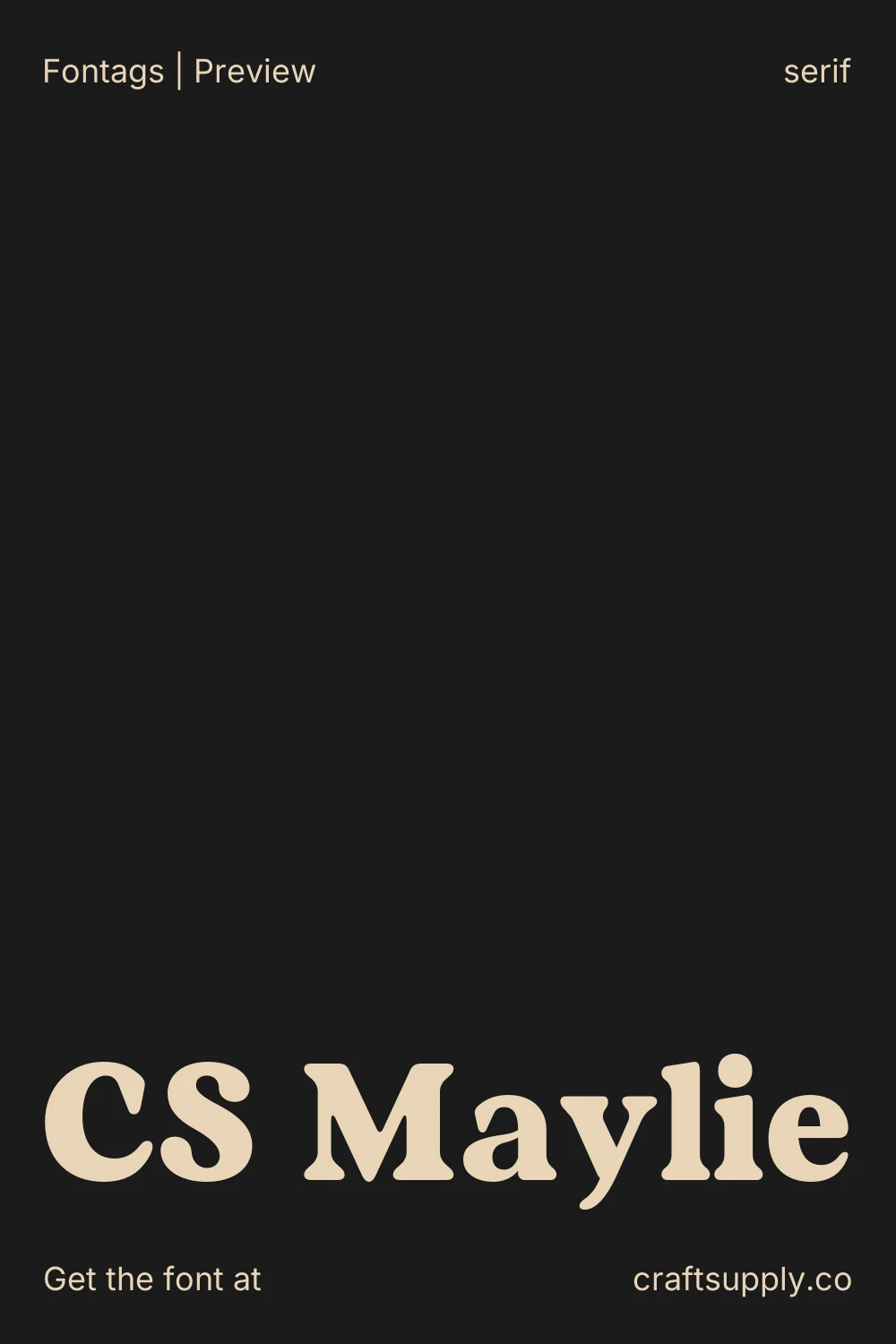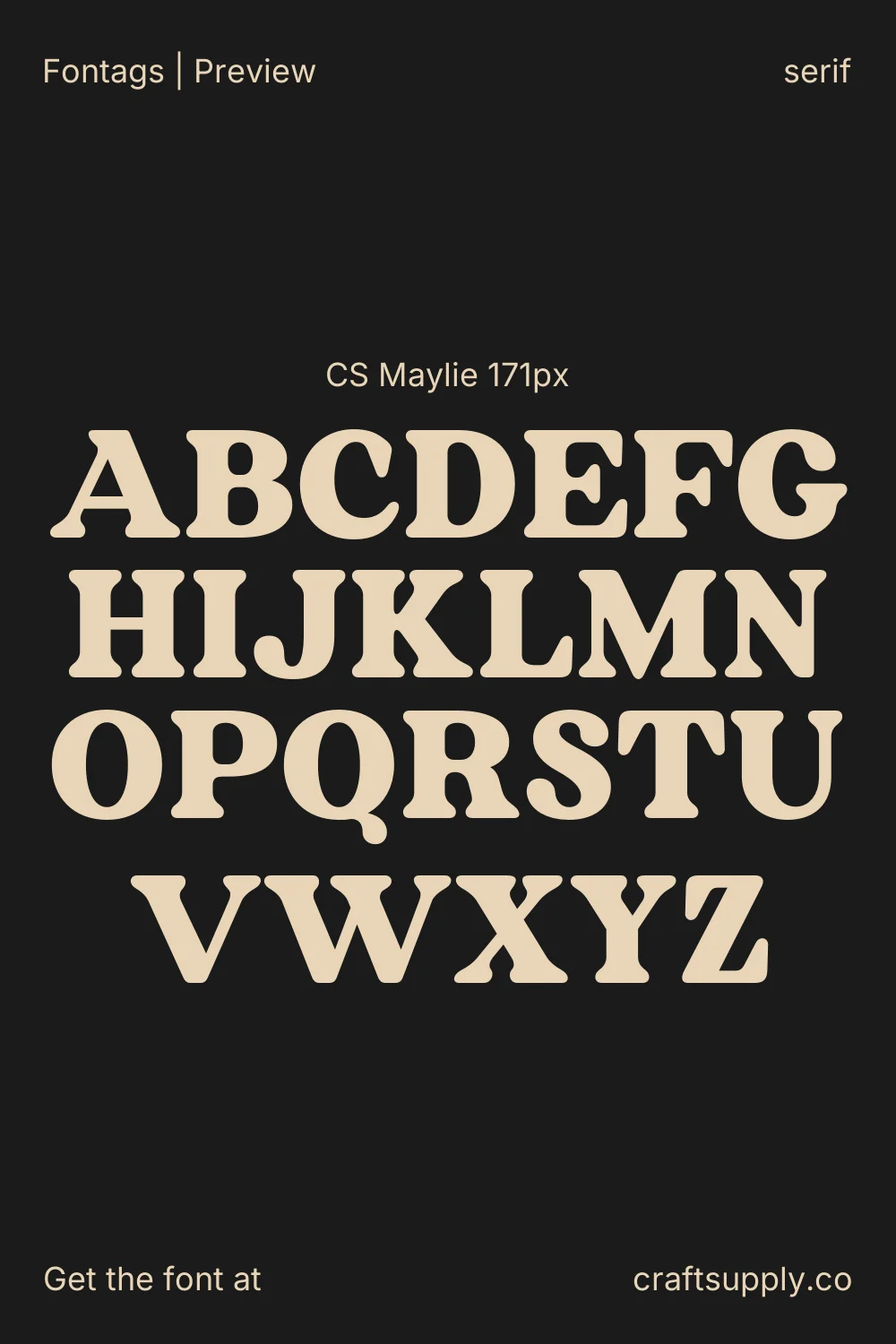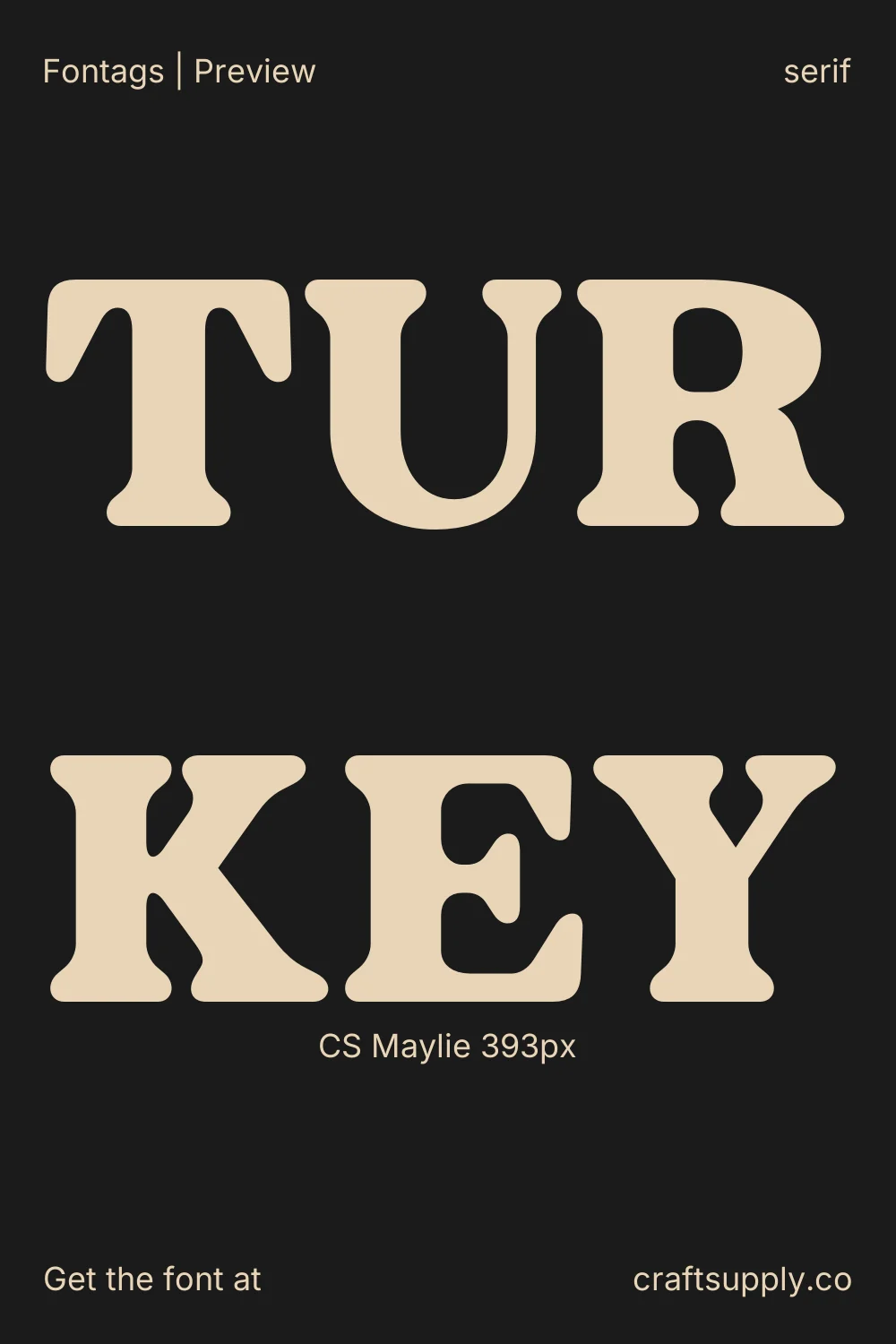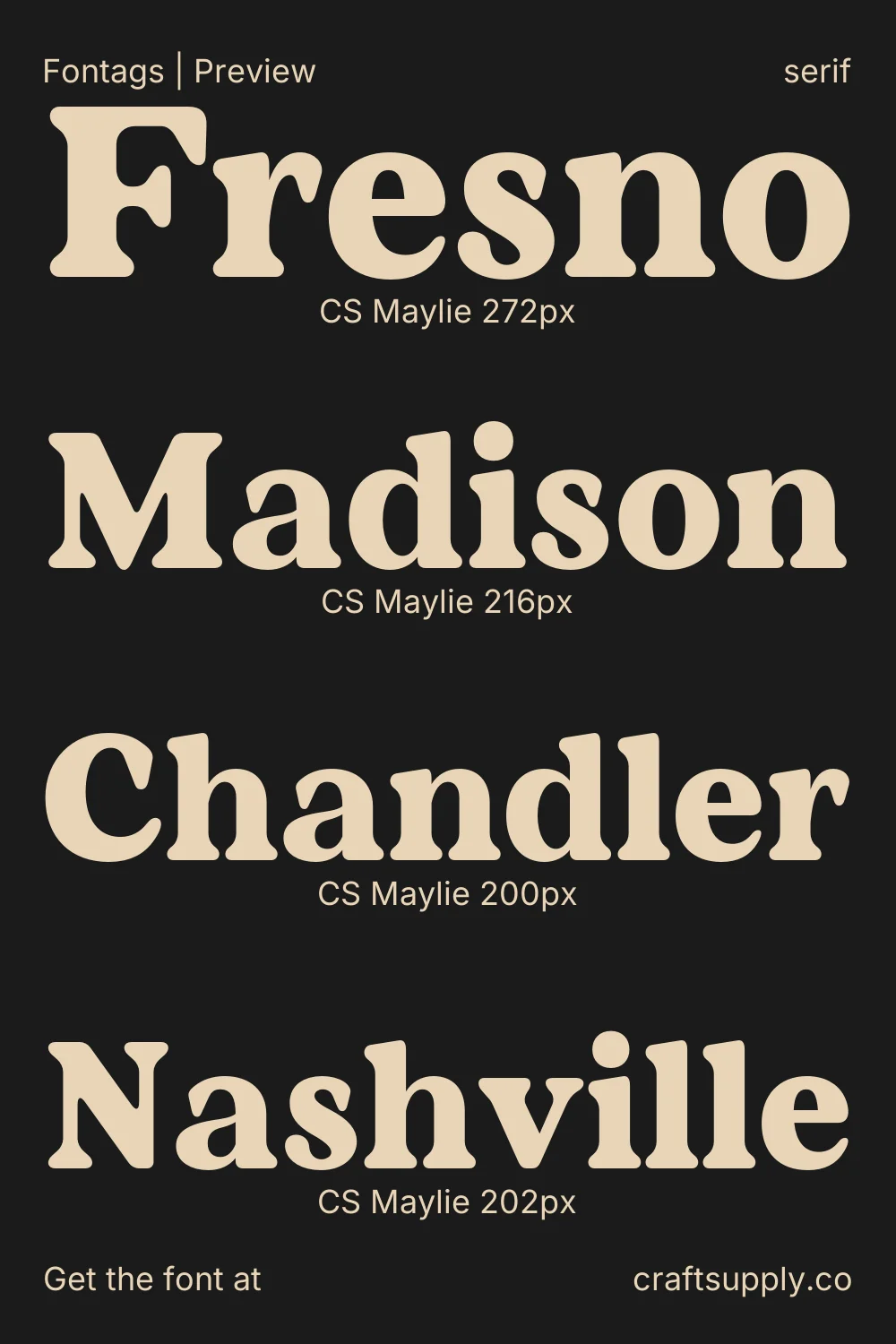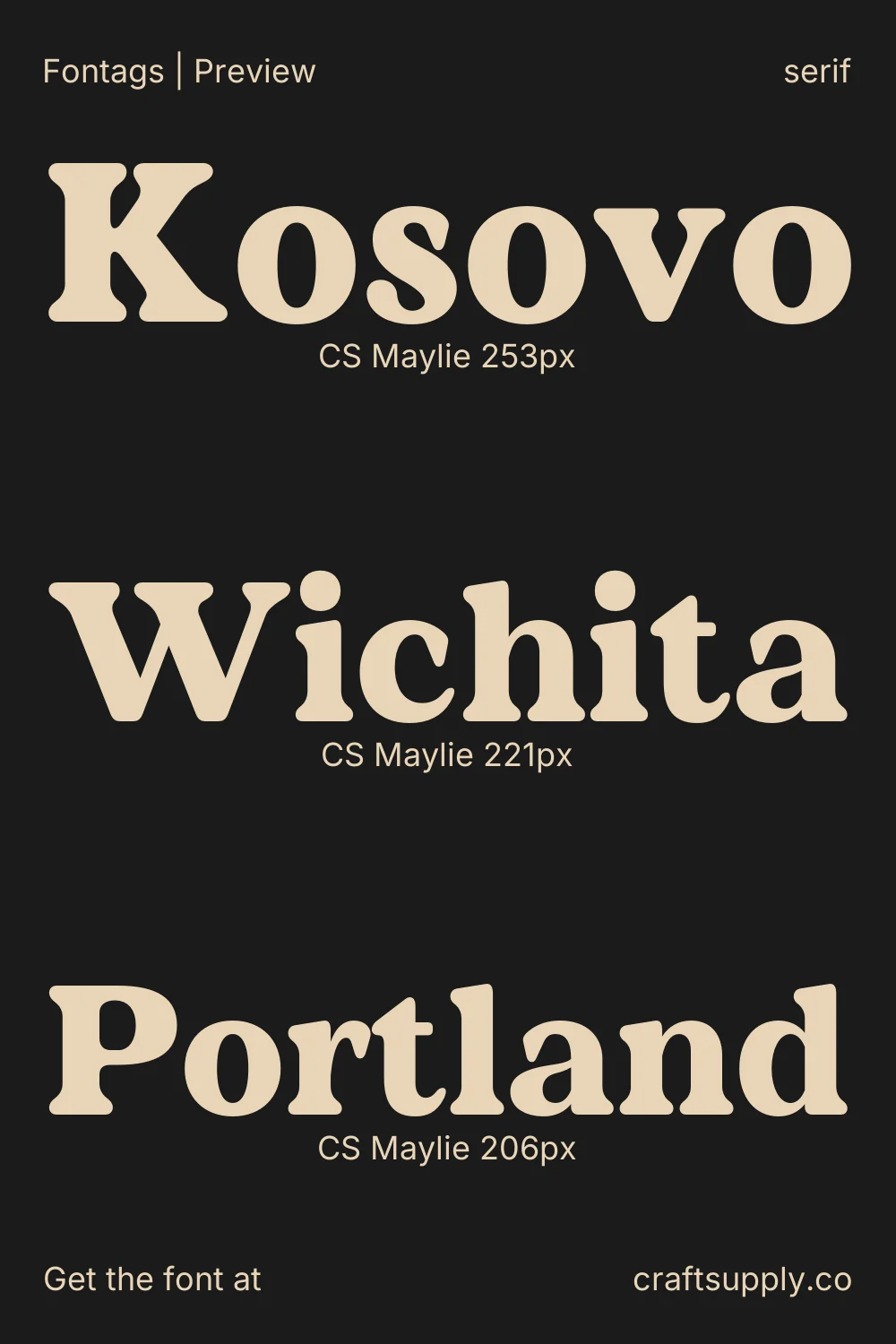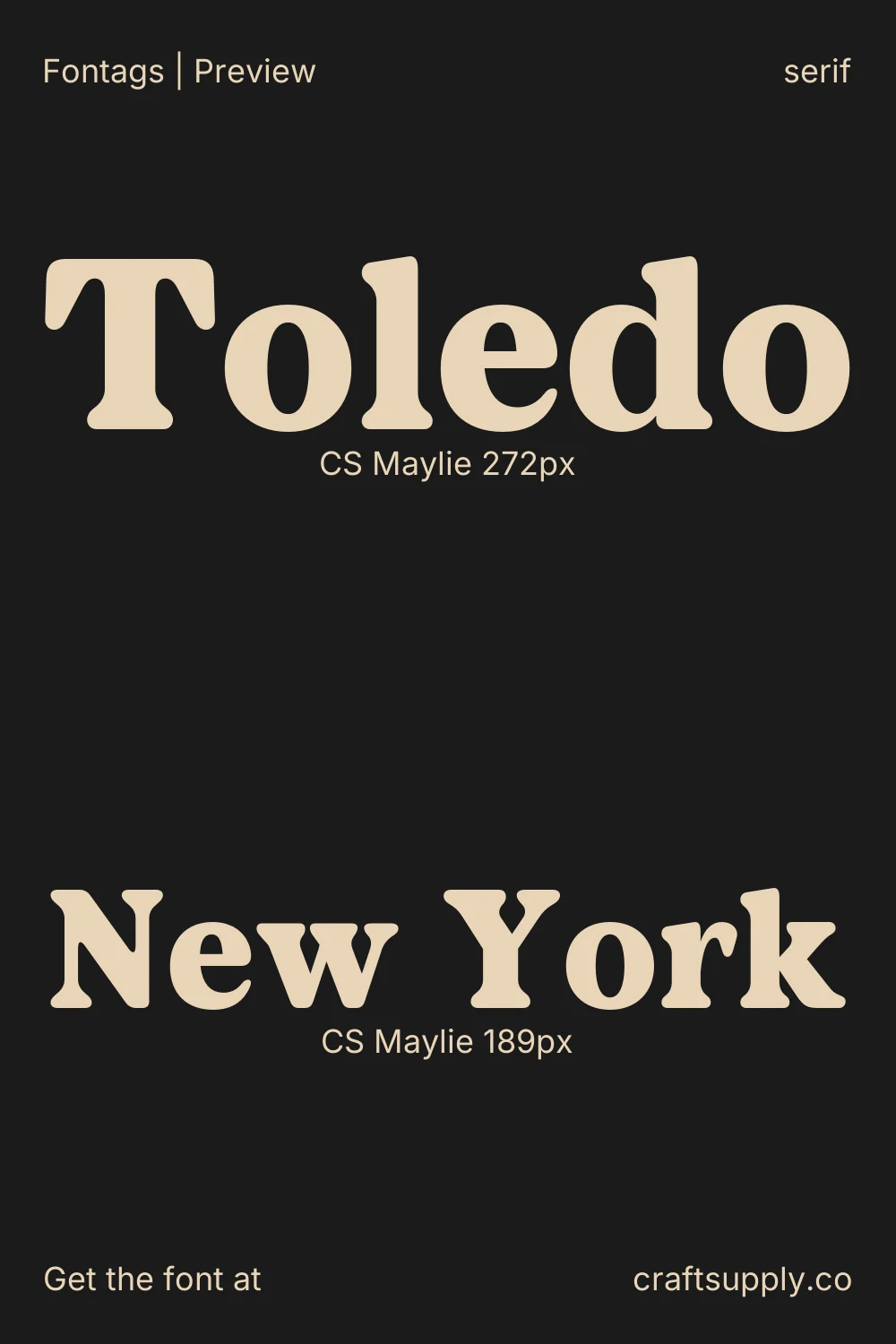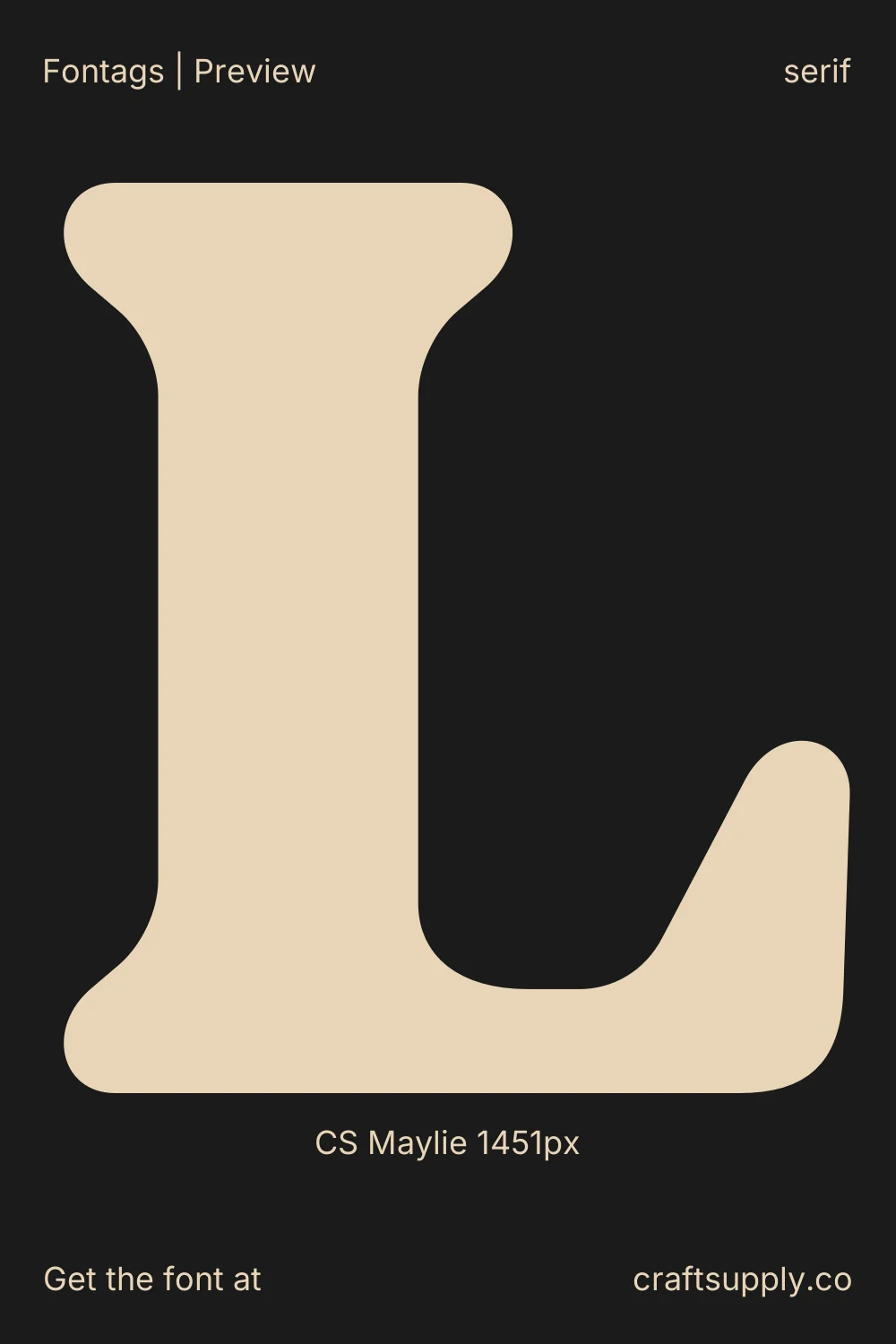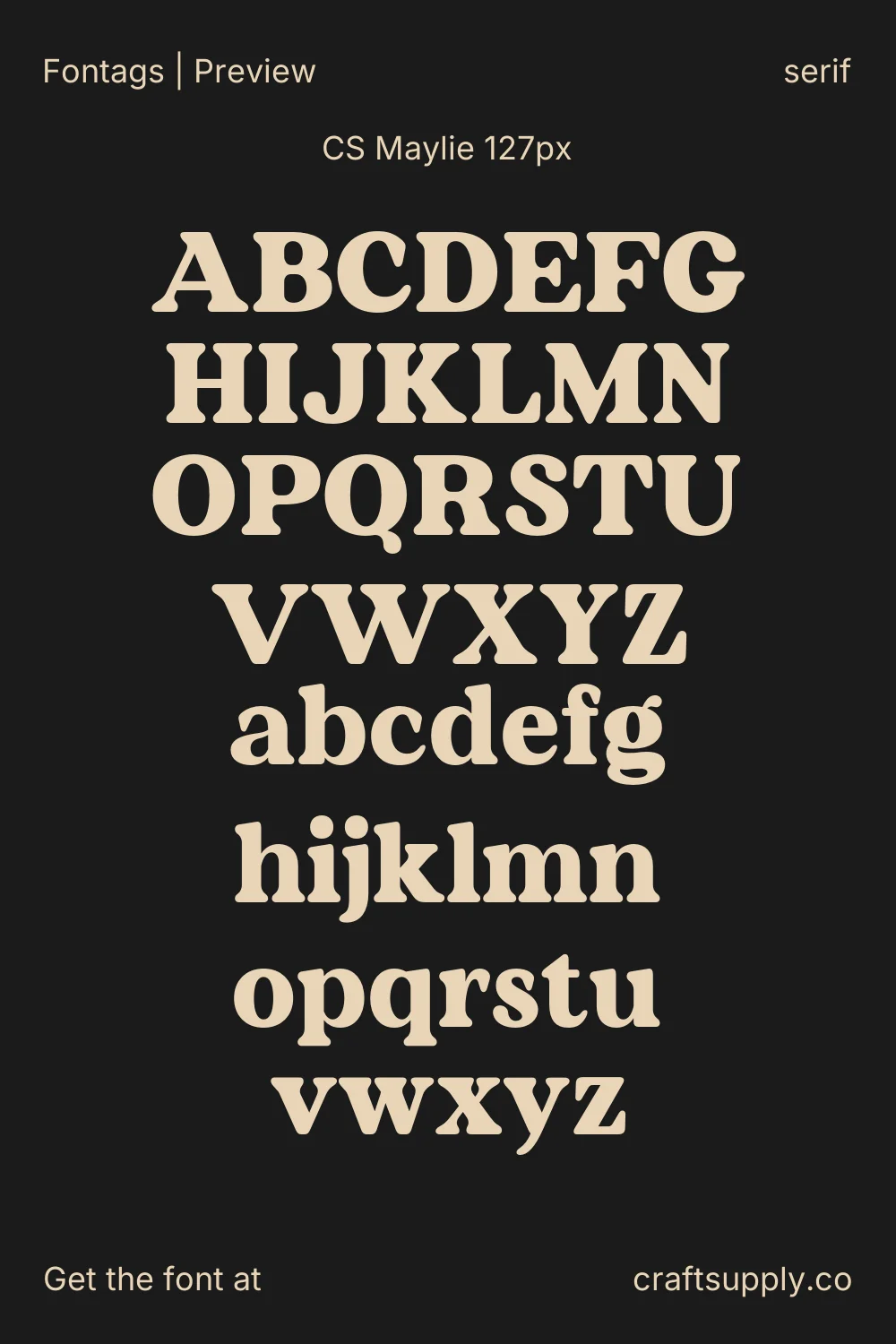
CS Maylie
CS Maylie is a bold, rounded serif font that channels retro 90s nostalgia. Its thick, soft letterforms create a warm, cheerful personality, making it ideal for posters, youth branding, and creative projects seeking a playful vintage vibe.